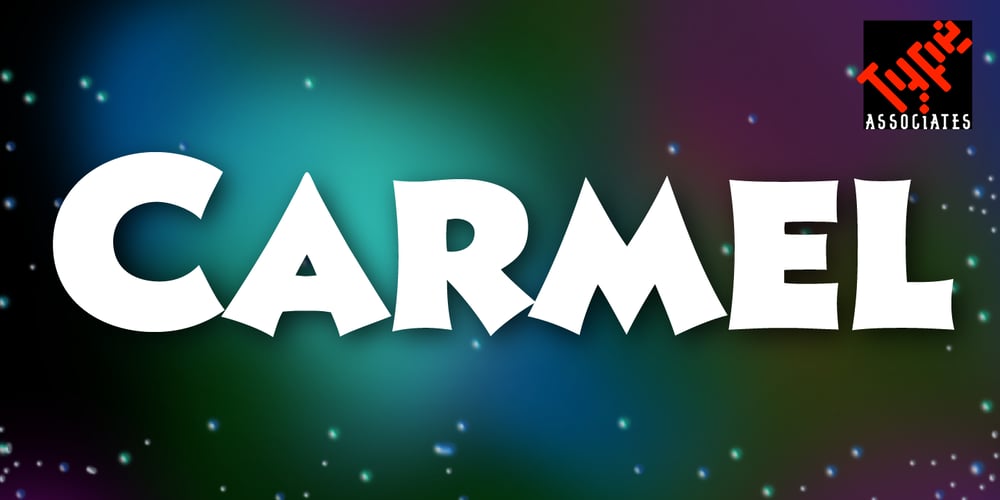
Carmel
Carmel font
Carmel Font Family was designed by Russell Bean and published by Type Associates. Carmel contains 1 styles and family package options. This font has been on my drawing board since the late eighties. It was based on drawings provided to me by an old sign-painter family friend and we used it extensively as a caps-only font in the early 90s on a cellphone ad campaign.It loves to be tight set and stacked and provides real grunt when you need it. Small caps have been added and have been weight and proportion adjusted so as to complement the caps.At Type Associates we believe that a font is not complete until the spacing is optimal. Carmel is another example of quality through extensive experience, testing, adjusting and refining.